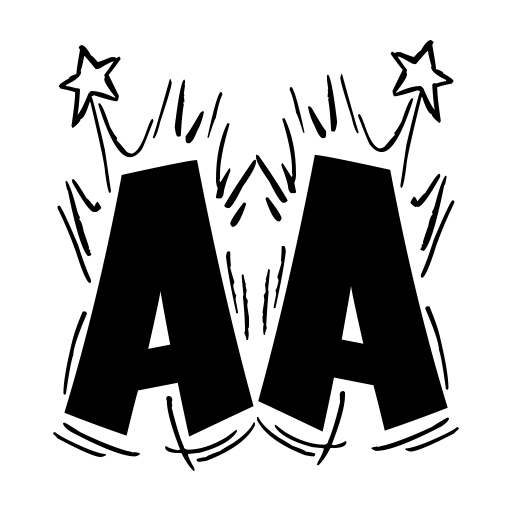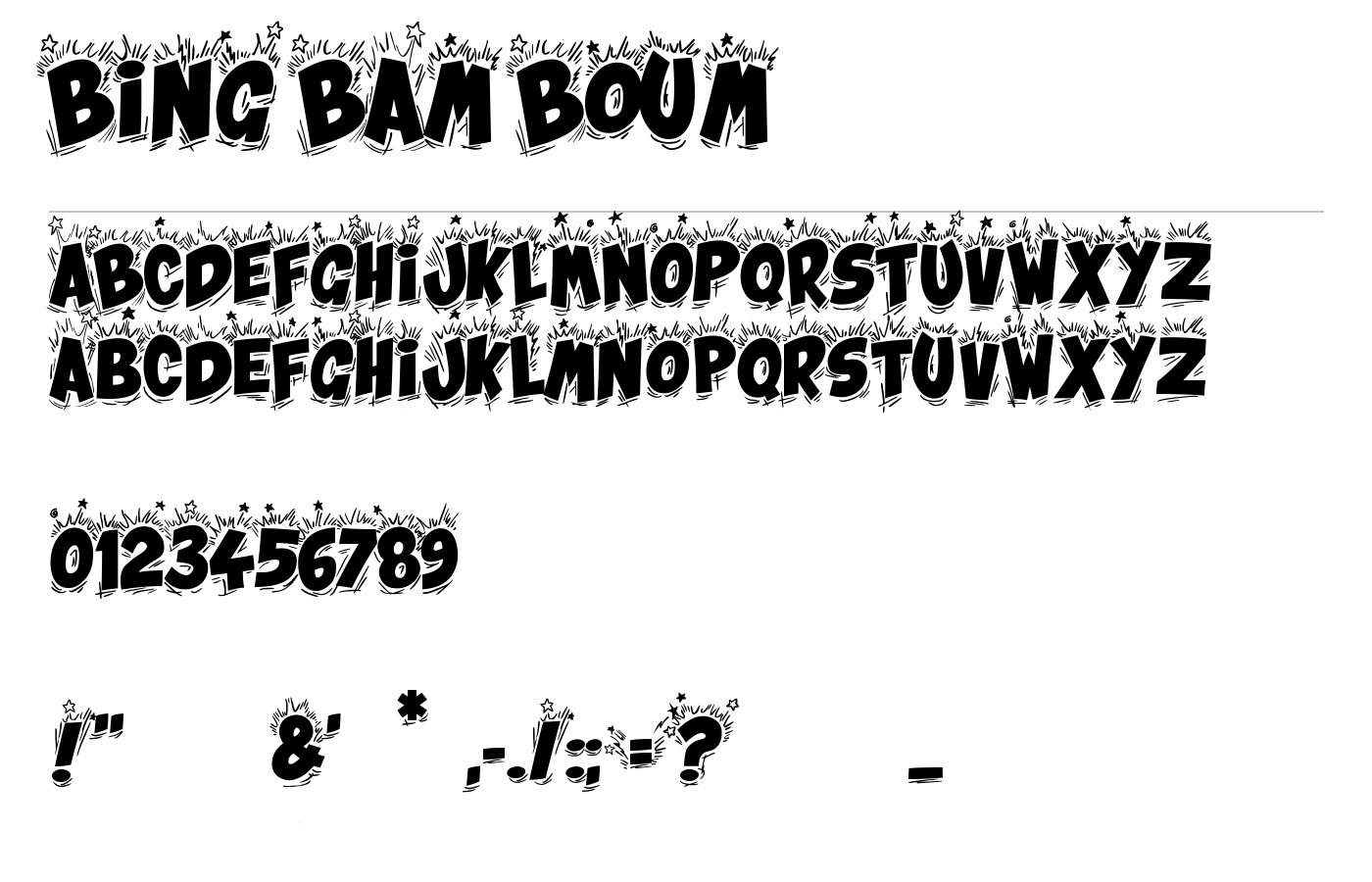
Bing Bam Boum is a bold, playful display font featuring chunky, irregular letterforms surrounded by energetic star and line embellishments, giving it a lively comic or cartoon vibe. Its strong weight and casual, hand-drawn style make it perfect for eye-catching headlines, posters, children's materials, or fun branding where a vibrant and dynamic personality is desired. This font stands out with its unique decorative flair, adding excitement and a sense of movement to any design.
Bing Bam Boum Font
About Bing Bam Boum Font
| Font family | Bing Bam Boum Font |
| Designer | IMAGEX |